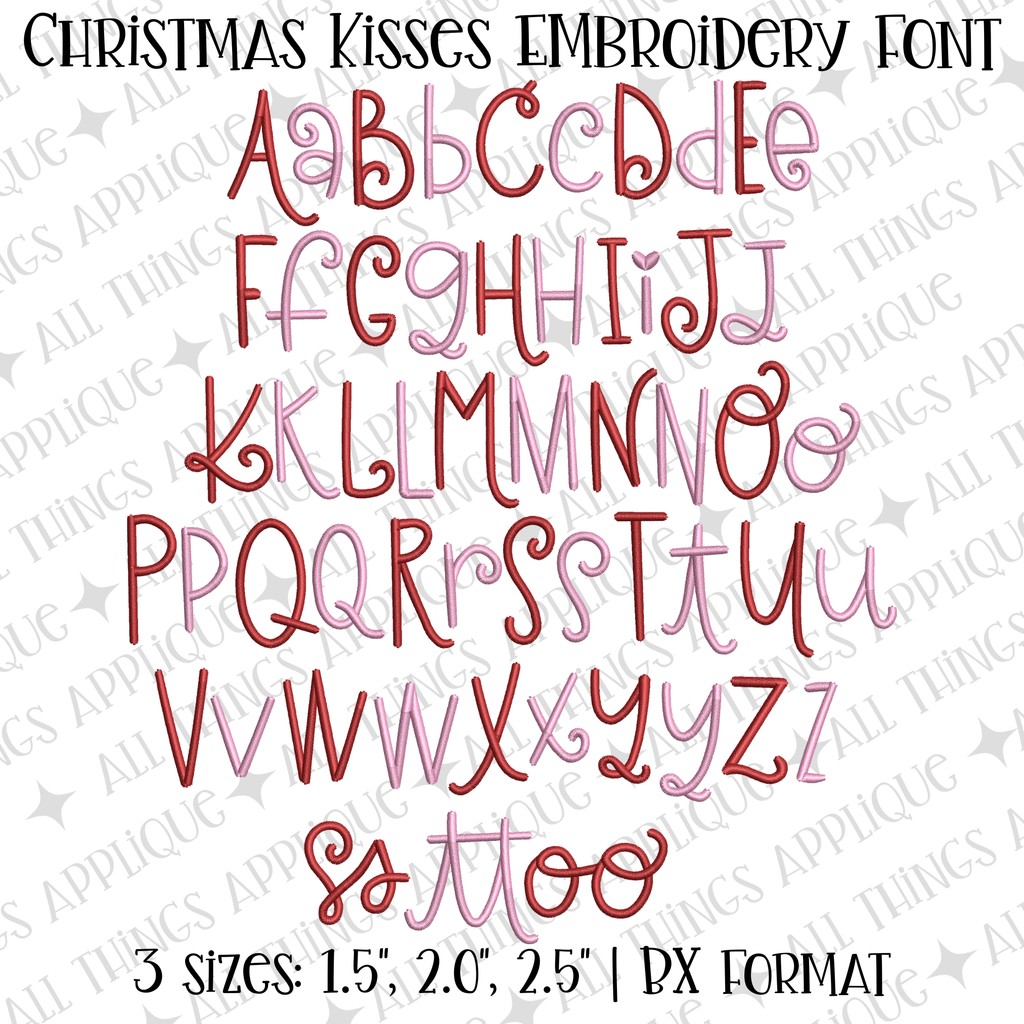
- Christmas Kisses Embroidery Font
About the Christmas Kisses Embroidery Font
Spread holiday cheer with Christmas Kisses, a playful embroidery font bursting with festive flair! Featuring clever alternate characters for double letters—special options for "oo," "ss," and "tt"—you can customize your designs with extra personality! Perfect for personalizing stockings, holiday pillows, festive apparel, and seasonal décor. Add a touch of whimsy to your embroidery creations this season!